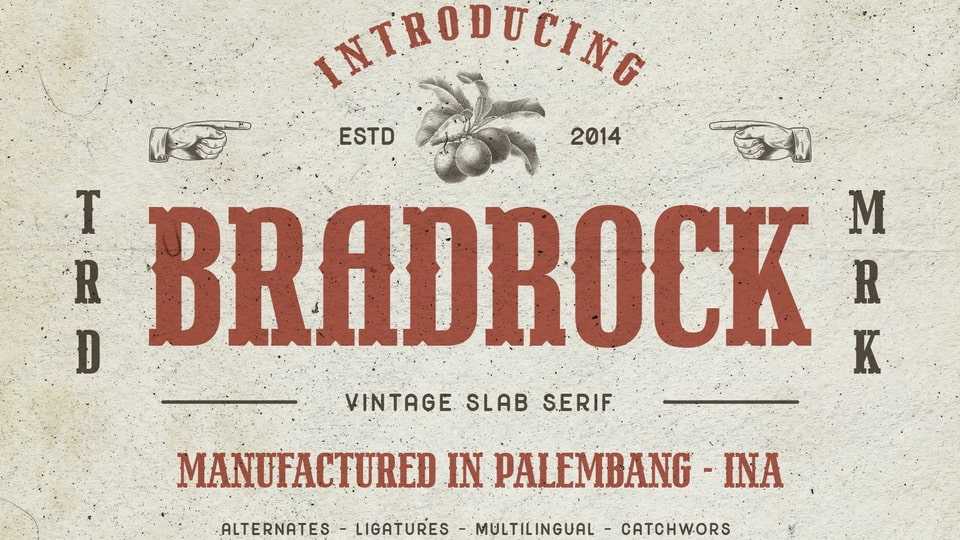
Download Bradrock font, a vintage slab serif typeface inspired by old-school cowboy design and circus-style lettering. Bradrock has a more decorative typeface by adding bold bifurcated serif on the letterforms.